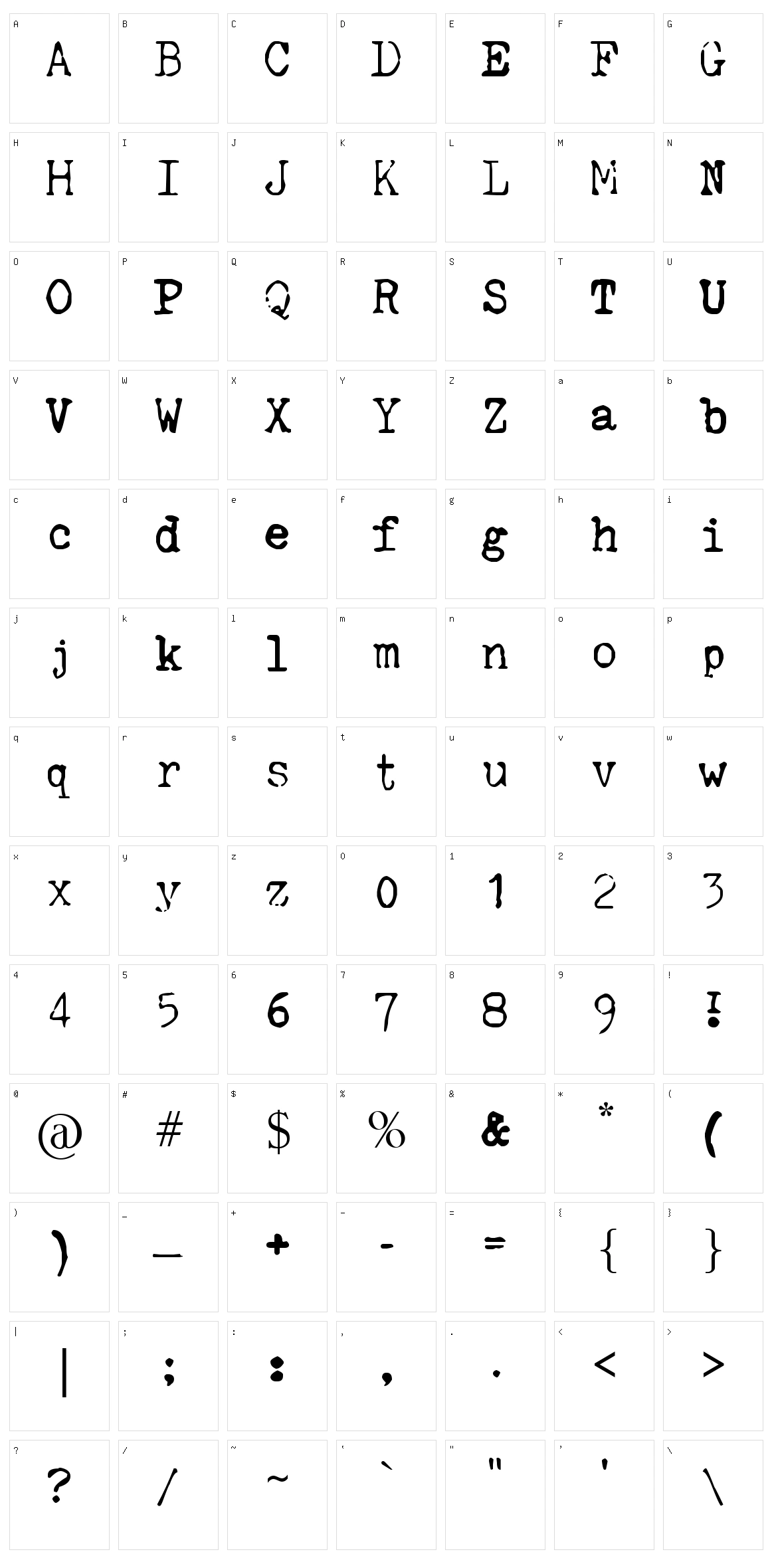
The free font Silent Hunter III is carefully designed by Louis Frank, showcasing a thoughtful balance of creativity and usability and falls under the Typewriter font style. When you download the ZIP file, it contains only 14.54 KB of font files, making it lightweight and quick to download. Please review the license details below to understand permitted usage and distribution rights. If license information is not available, we recommend using this font for personal projects only or contacting the author directly for commercial usage permissions.